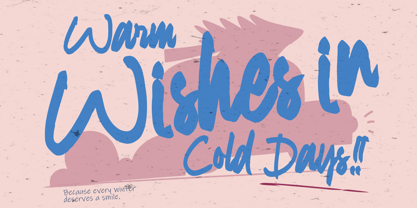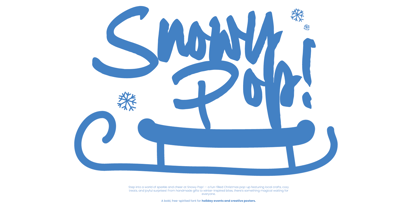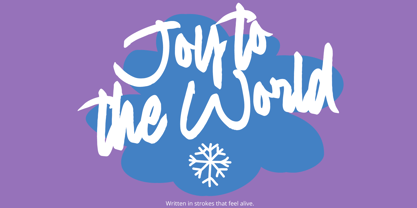
Resonan Bastega
by Inviline
The Resonan Bastega Font Family was designed by Virgiawan Listanto and published by Inviline. Resonan Bastega contains 1 styles. More about this family
Resonan Bastega is a bold brush script font that brings a handmade warmth to your design, featuring a textured appearance with expressive strokes that feel dynamic yet approachable — perfect for seasonal branding, holiday packaging, greeting cards, winter event posters, cozy product labels, or any creative work that needs a personal handwritten energy, and you'll get a complete set of uppercase and lowercase characters, numbers, punctuation, multilingual support, and beautifully crafted alternates to keep your typography looking natural and full of character.
Designers: Virgiawan Listanto
Foundry: Inviline